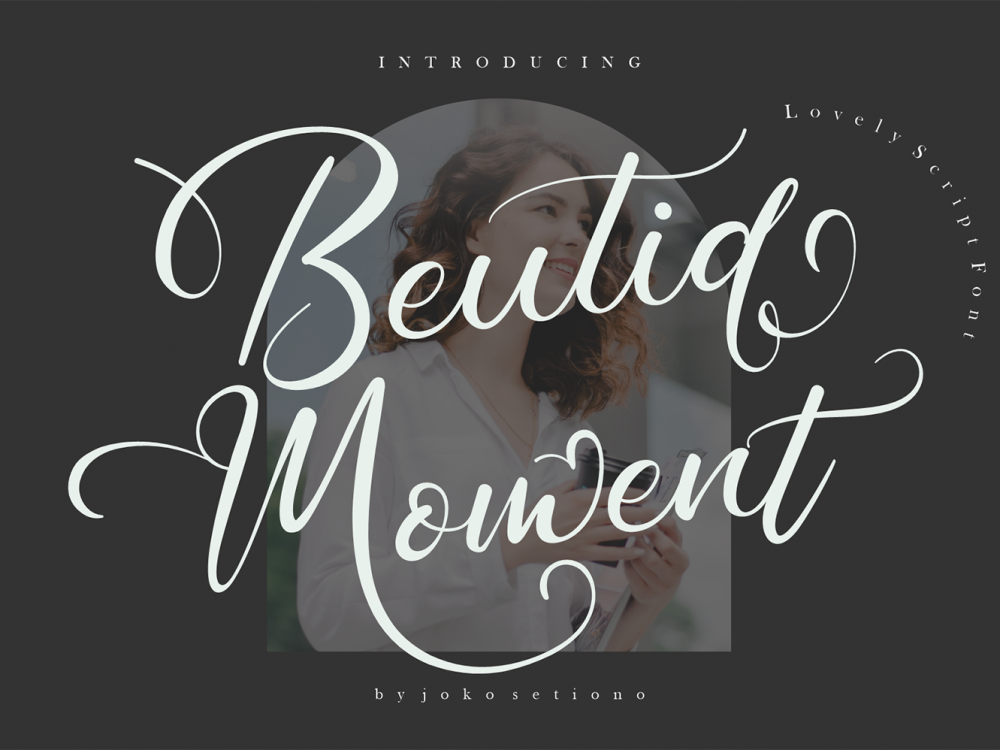
Beutiq Moment Free Font
Beutiq Moment Free Font is an interesting calligraphic font with an elegant style. This font offers your personal touch to your latest art project with an elegant, classy, ​​and modern look. You can use this font to create memorable posters, wedding invitations, greeting cards, branding, flyers, t-shirt and pillow prints, and more. If you like it don’t forget to check out the full version.